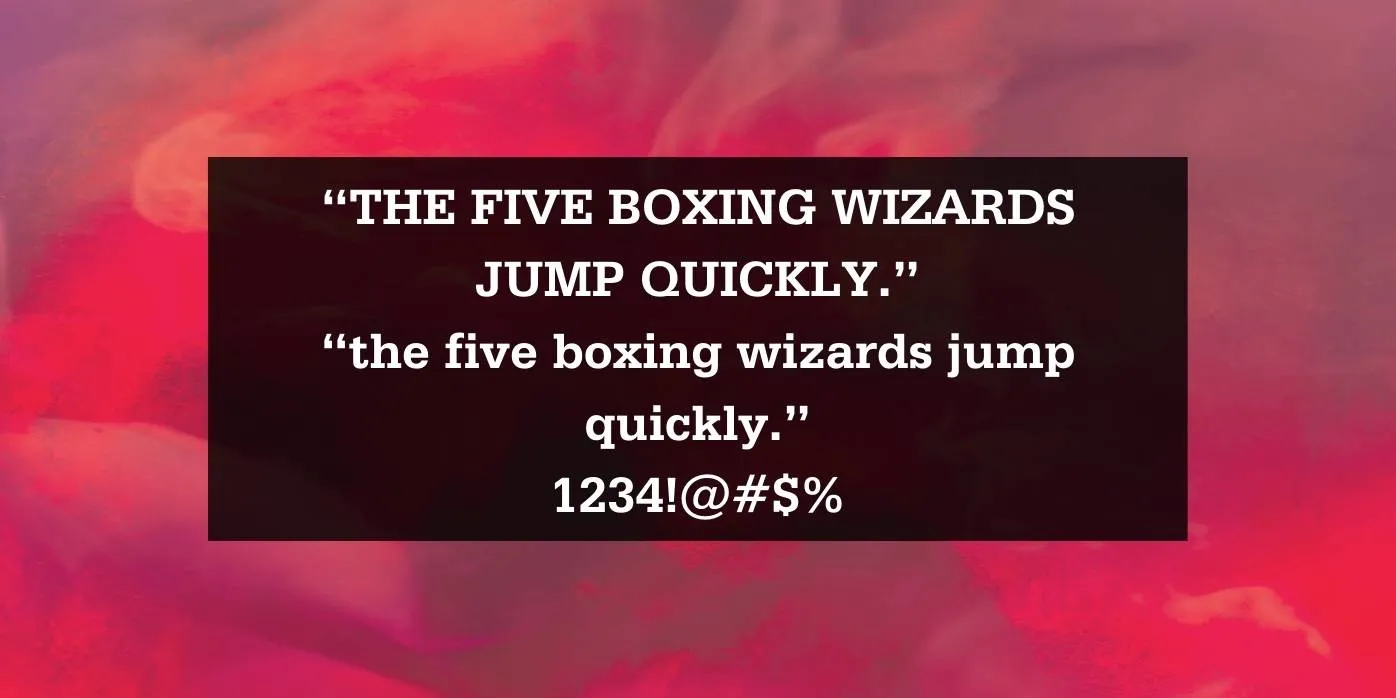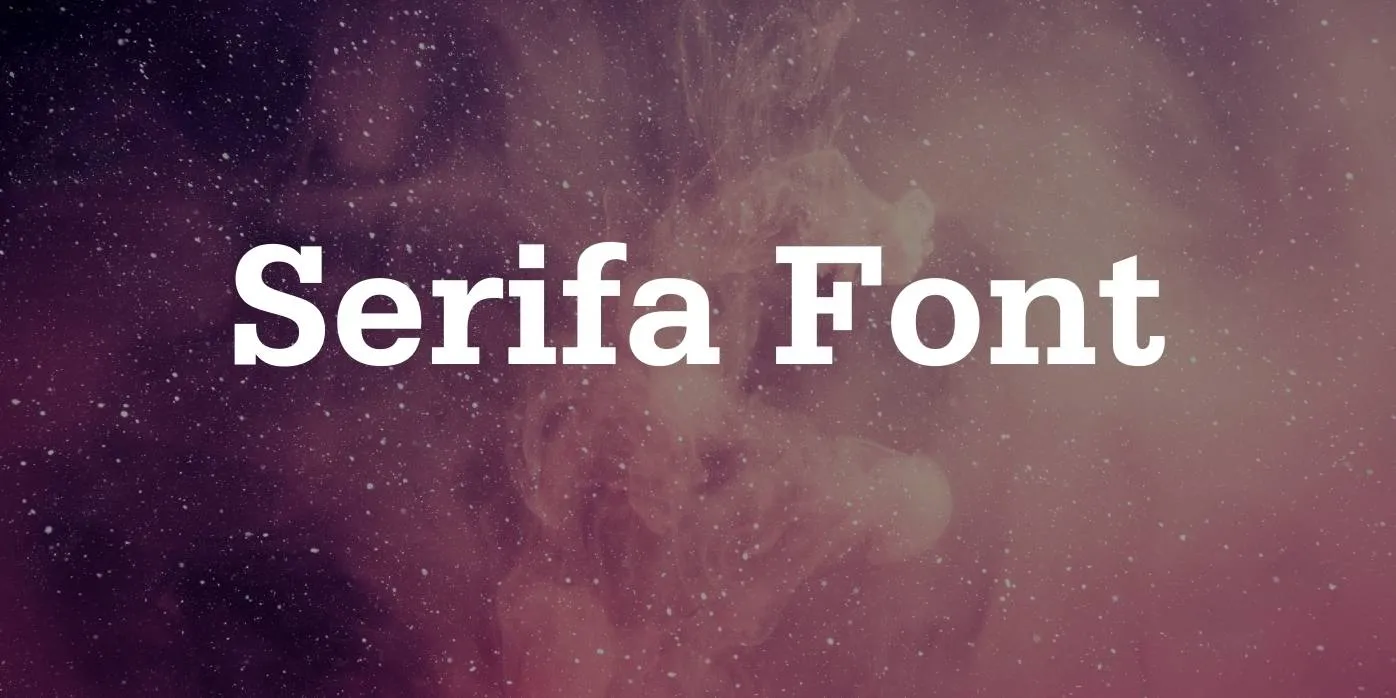
Serifa Font
Serifa Font belongs to the serif font family and this typeface was designed by Adrian Frutiger. This awesome typeface was released in 1967 and it is still being used by many designers all over the world. This font has unique characteristics like its high readability, legibility, and distinctiveness. It is perfect for long texts, displays, and logos.
This family also includes glyphs, symbols, and characters. This gorgeous font is perfect for any project that needs a high readability font with great legibility. You can use the generator tool of this family for all of the graphic design projects. Usage This typeface is impressive among all designers.
so, you can use it for many tasks like long texts, displays, logos, and much more. This font is widely used because of its high readability. You can use it for any project that needs a clear font with great legibility. While in the official environment, this family is used for all business projects such as bank statements, invoices, tax documents, etc.
However, it can also be used in more creative projects like website design, poster design, and much more. Serifa is a strong typeface that will help your text stand out from the rest. It is perfect for any project that needs a high readability font. You can use this font for newspapers and articles.